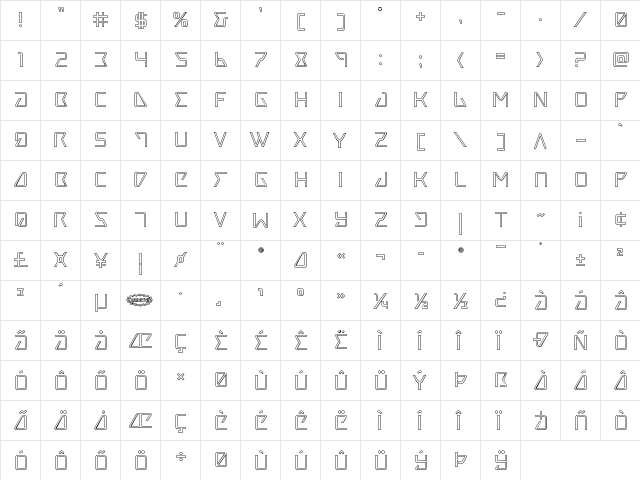
Tracer Outline Outline
Design Context for Tracer Outline Typeface
Tracer Outline is built around its visual character rather than neutral utility — its distinctive forms are designed to make an impression at display sizes.
Font Pairing: Pair with a clean neutral sans-serif for body copy to let Tracer Outline's character lead without overwhelming the composition.
Pro Tip: Treat Tracer Outline as the centrepiece of your typographic hierarchy. One strong heading set in a decorative face can carry an entire layout.